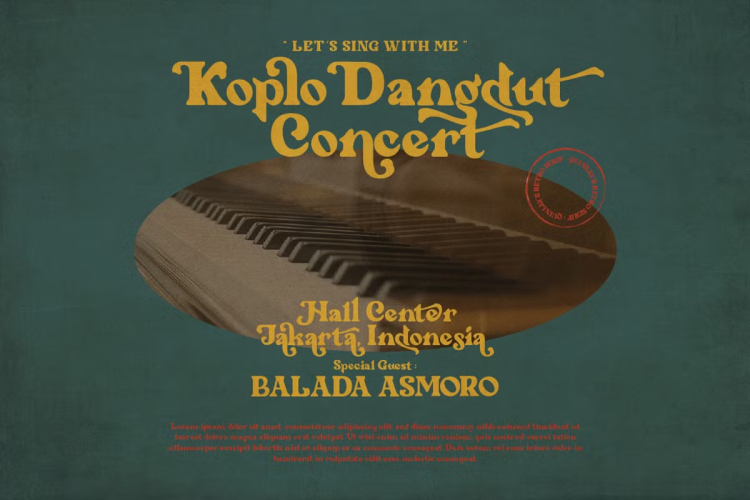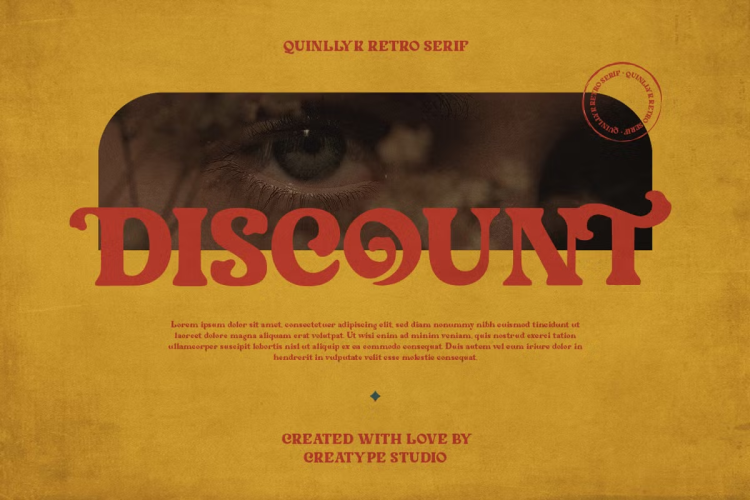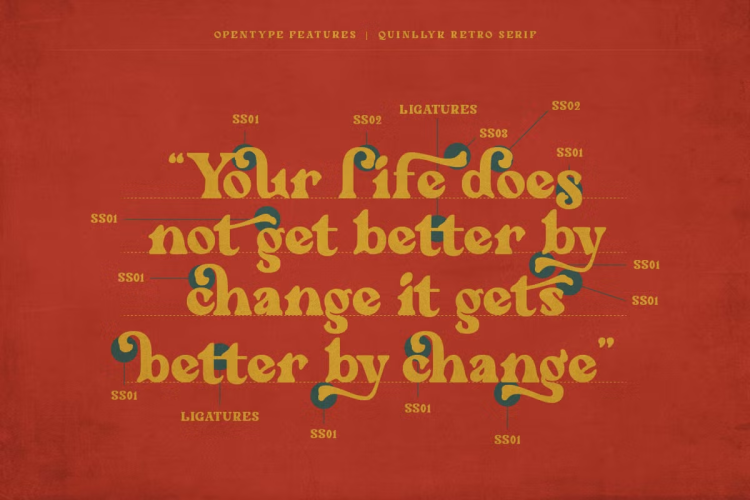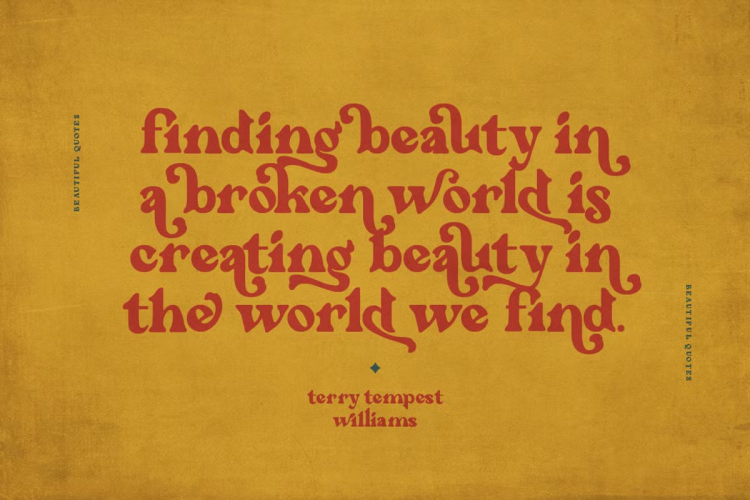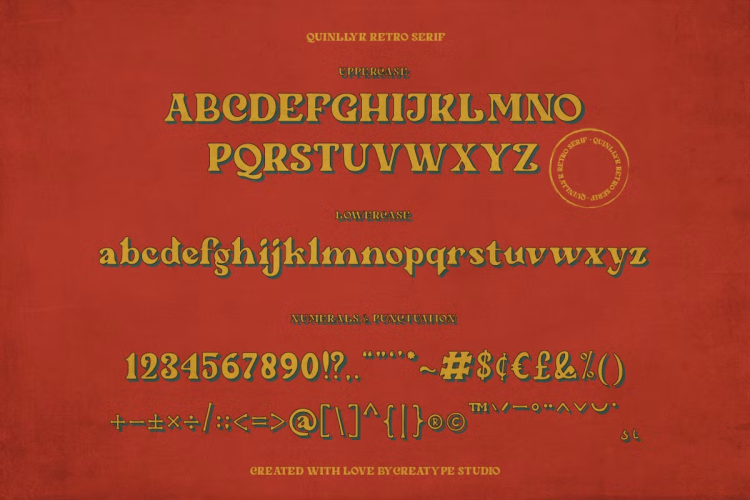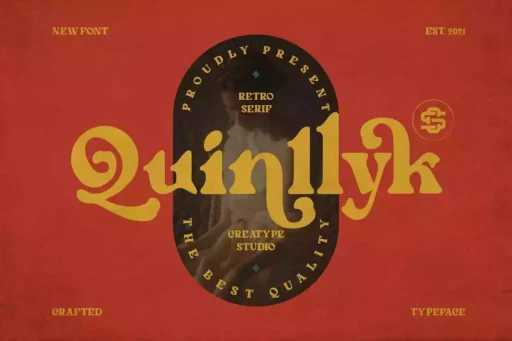
Quinlliyk Font
Quinlliyk is a font which has a rather bold retro serif look to it. The thick curves of the body are so bold and are definitely something that reminds me of the 60s and…
Quinlliyk is a font which has a rather bold retro serif look to it. The thick curves of the body are so bold and are definitely something that reminds me of the 60s and 70s. It has a thick serif and has some curved design that adds more uniqueness to it, of course, for all your products. This font contains more than 50 unique glyphs and 10 unique ligatures.
Quinlliyk is suitable for any branding project, logo designs, wedding invitation designs, social media graphics, advertisements, product packaging, product designs, labels, photography, watermarks and any design that requires the handwriting touch.
Where Quinlliyk Font works best
Quinlliyk Font gives long-form text a classic, trustworthy rhythm — ideal for magazine spreads, annual reports and book interiors.
Pair Quinlliyk Font with generous letter-spacing for wordmarks in fashion, hospitality, wine and jewellery branding.
Use Quinlliyk Font for slide titles in Keynote, PowerPoint or Google Slides to add authority without looking dated.
What is Quinlliyk Font good for?
Quinlliyk Font is a Serif Fonts typeface tagged Bold, Branding, Handwritten, Packaging. It works well for headlines, logos, posters, social media graphics and branding projects that need a distinctive serif fonts look.